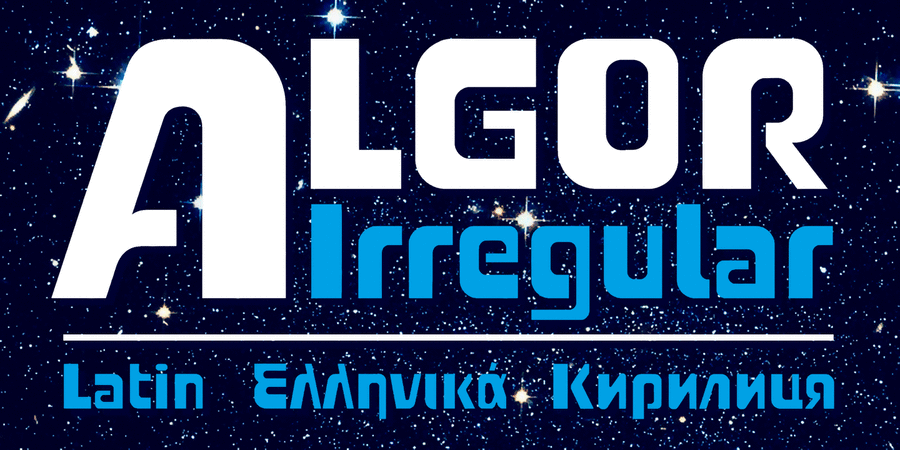
Algor (1 font)
Logo font pair with Klapt Cyrillic Medium (1 of 8)About AlgorThe experimental typeface Algor is based on the algorithm of changing the thickness of strokes depending on the complexity of the character, which, despite the external irregularity of individual letters, creates a plain, tonally sustained, expressive line with a complex internal rhythm. The font looks good in uncommon display matter, covers, logos, etc. It works well in pairs with light sans serifs, and works even in vertical lines. The proposed version contains extended Latin, Monotonic Greek, Modern European Cyrillic alphabets and the International Phonetic Alphabet. But the contour itself is universal and not connected with historical styles, which allows us to develop a character sets for various writing systems. You can write to the author and order an additional extension for any alphabets. The author has already created the sketches of Semitic and Far Eastern symbols. The font was designed by Viktor Kharik in 2018 for Ukrainian charity project Shchedryk.
Features of font family AlgorThe hit of the decade:
Typeface purpose in design:
Typeface adaptability to media:
Associations for font family AlgorTypeface personality and character:
Typeface associated with activities:
Typeface associated with gender:
Geographic association of the typeface: